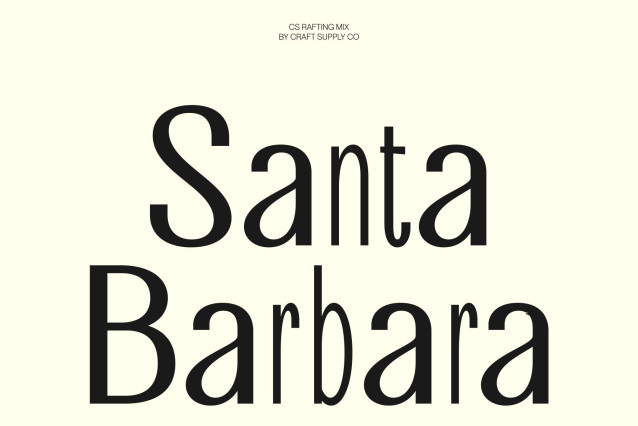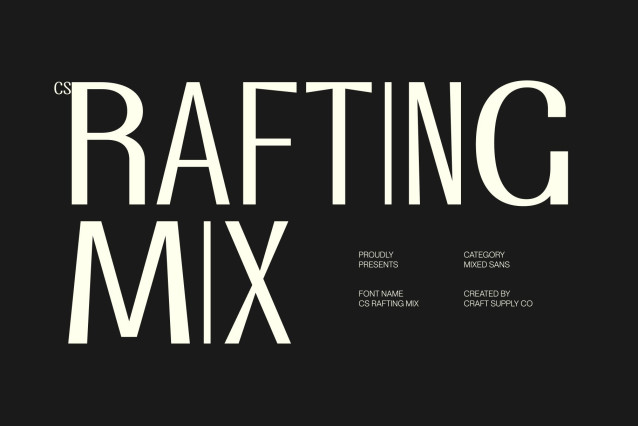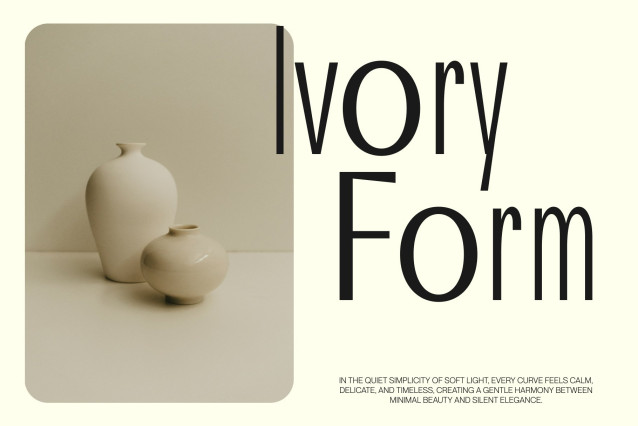
CS Rafting Mix Font
CS Rafting Mix – Modern Sans Serif Font: Elongated Elegance with Confident Modern Strength
Modern Sans Serif with Mixed Style Character
This is a modern sans serif font designed to express confidence, precision, and contemporary sophistication. Built with clean structures and elongated proportions, this typeface introduces a distinctive mixed-style concept that adds subtle contrast and visual rhythm to every composition.
A Dynamic Blend of Bold and Regular Letterforms
The defining strength of this font lies in its thoughtful fusion of bold and regular styles. This mixed-weight approach creates smooth typographic hierarchy and dynamic visual flow, allowing layouts to feel engaging without sacrificing clarity. The contrast between strong strokes and balanced forms enhances readability while giving the font a more expressive and contemporary personality.